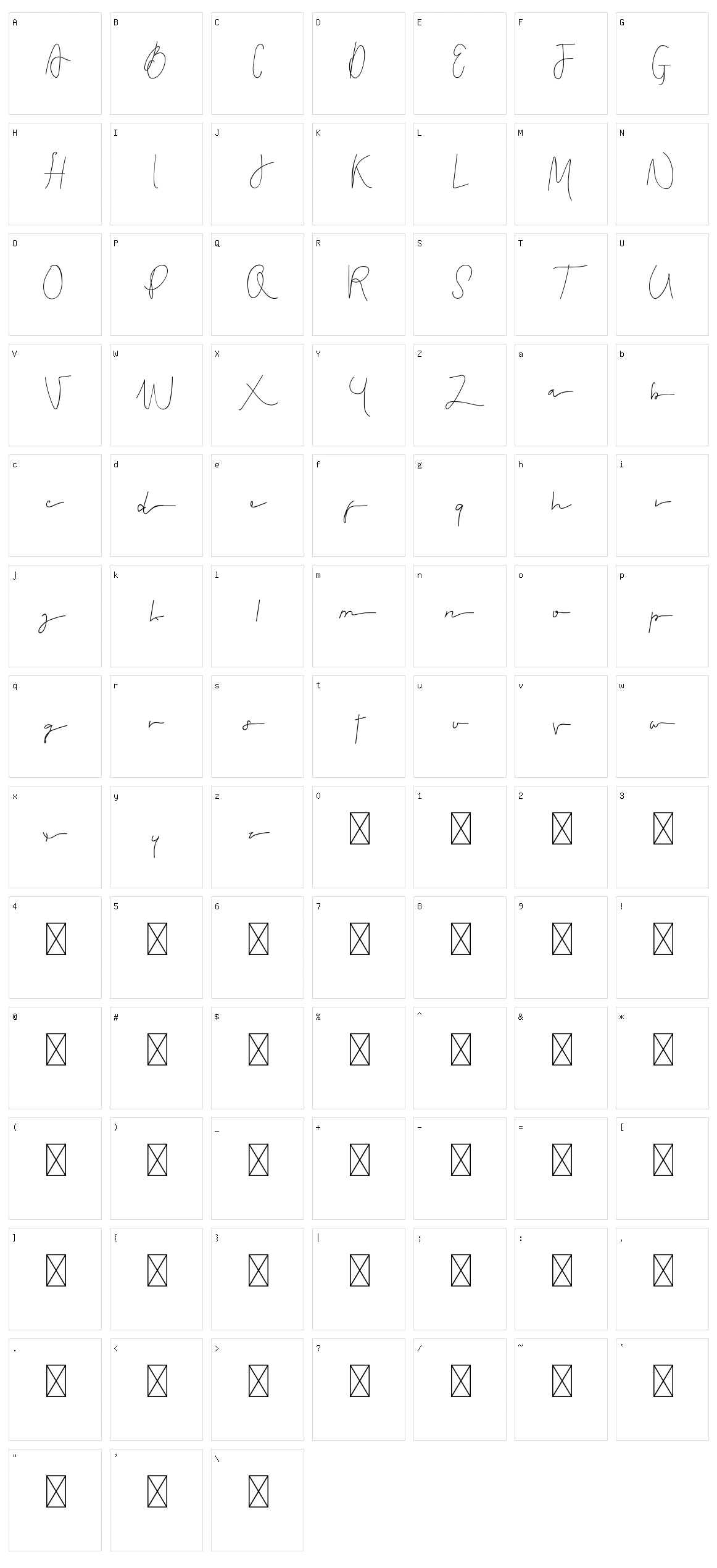
The free font Dewebeauty is carefully designed by Edric Studio, showcasing a thoughtful balance of creativity and usability and falls under the Script font style. When you download the ZIP file, it contains only 11.16 KB of font files, making it lightweight and quick to download. Please review the license details below to understand permitted usage and distribution rights. If license information is not available, we recommend using this font for personal projects only or contacting the author directly for commercial usage permissions.